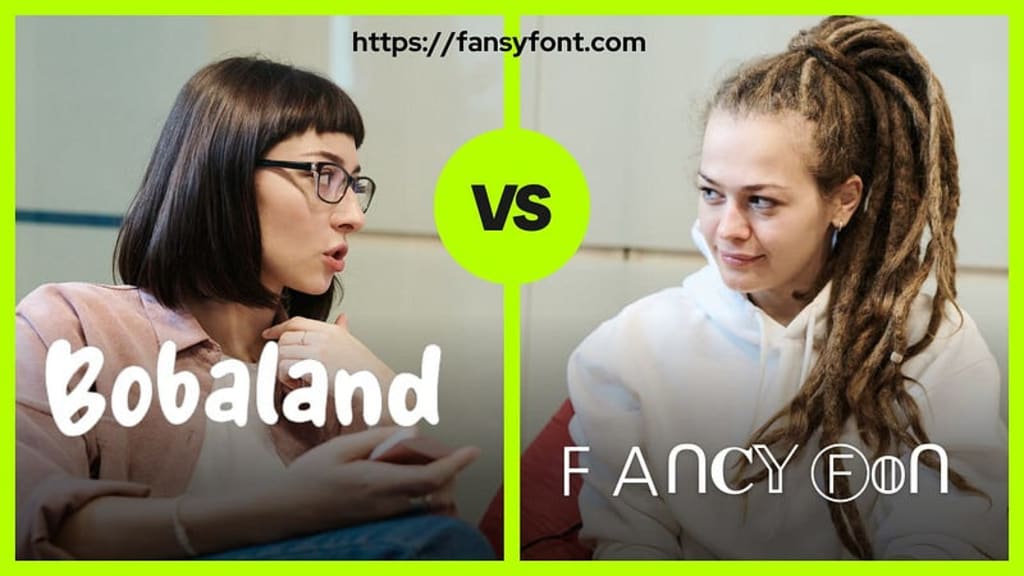
Bobaland fonts have become increasingly popular for Instagram users looking to add a unique and creative touch to their posts. With its wide range of quirky and eye-catching font styles, Bobaland offers endless possibilities for enhancing the visual appeal of Instagram content. From fun and playful fonts to elegant and sophisticated ones, Bobaland has something to suit every mood and aesthetic. Other aesthetic fonts help you generate exciting fonts, which are called fancy fonts. You can update these fancy fonts in your own instagram profiles.